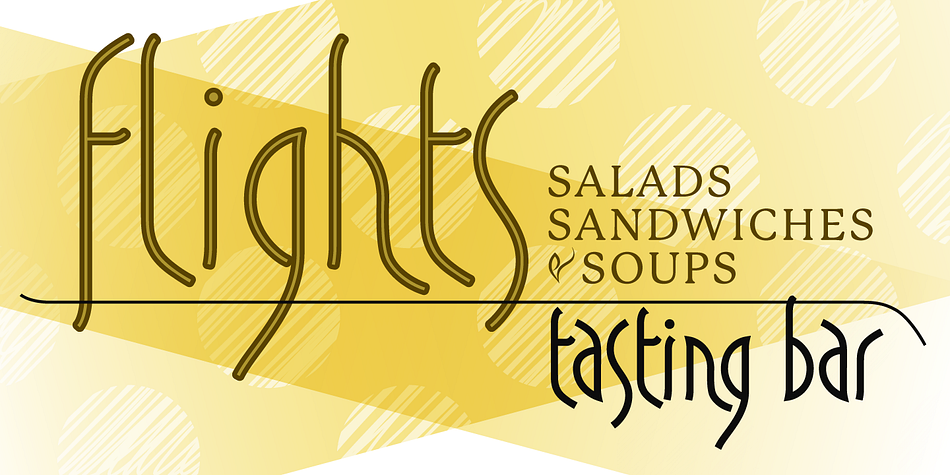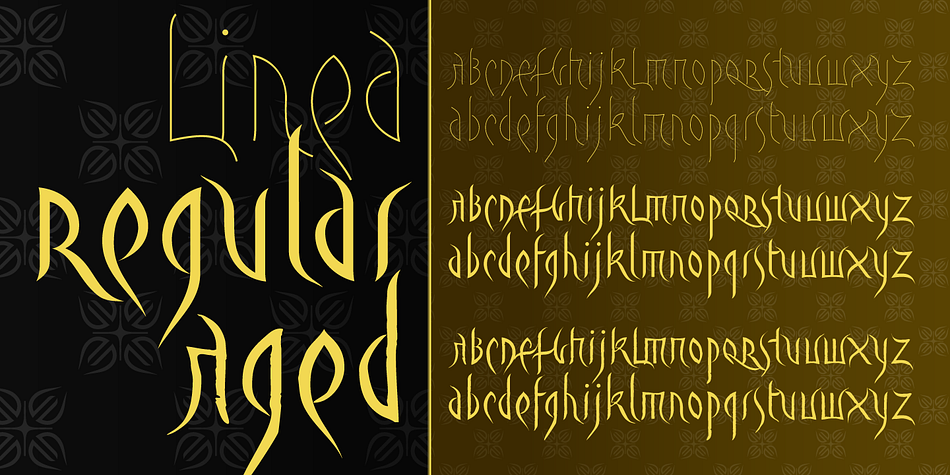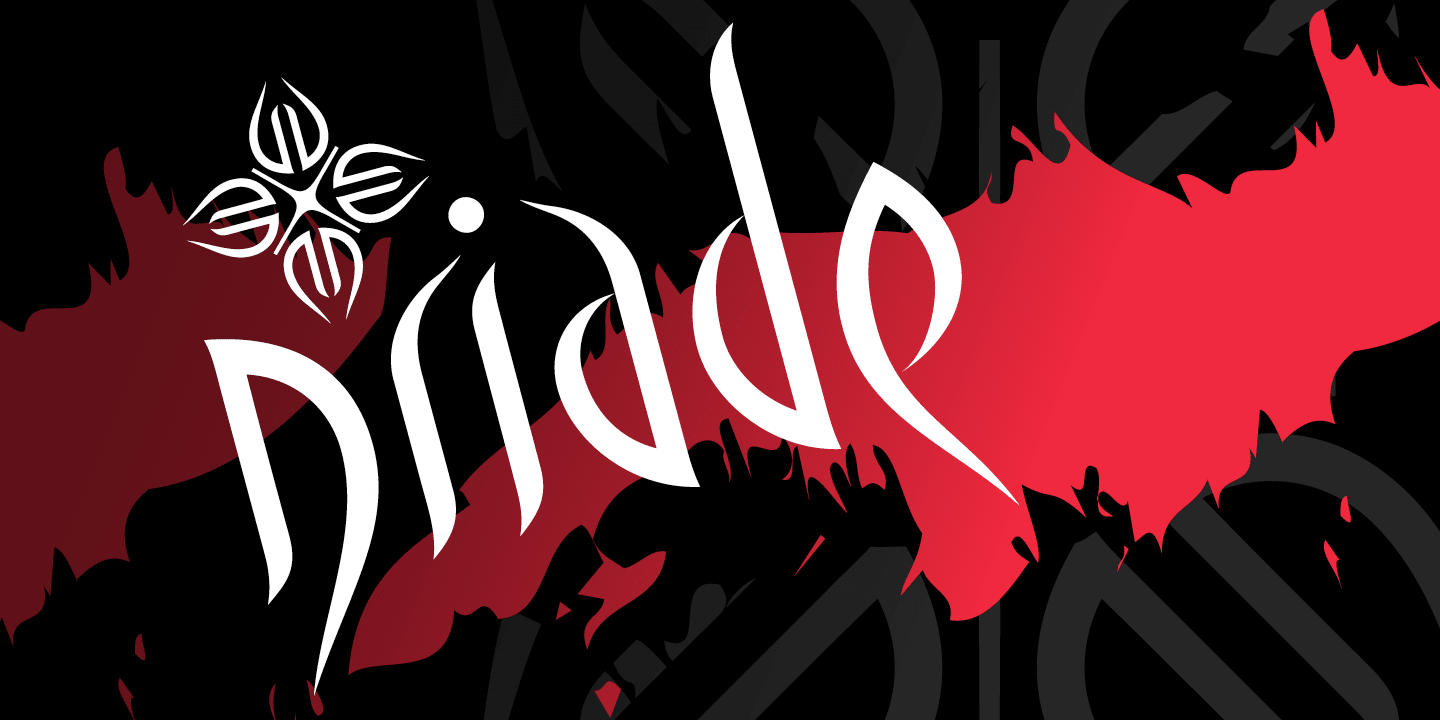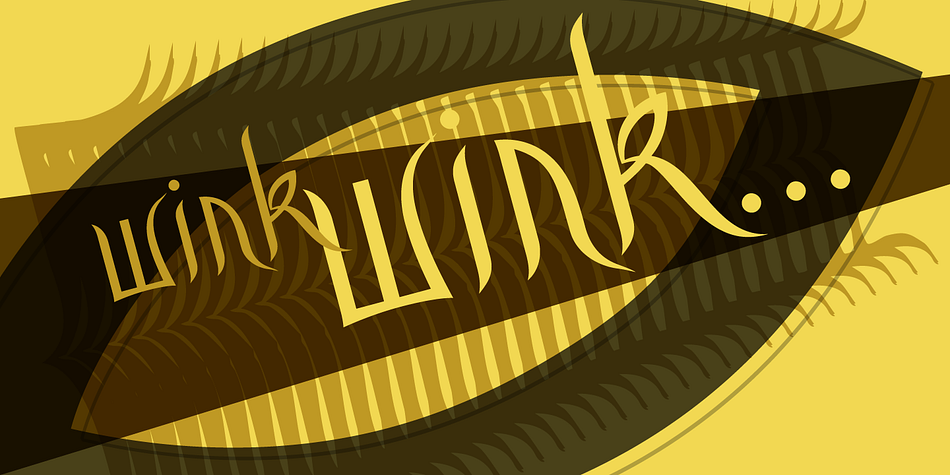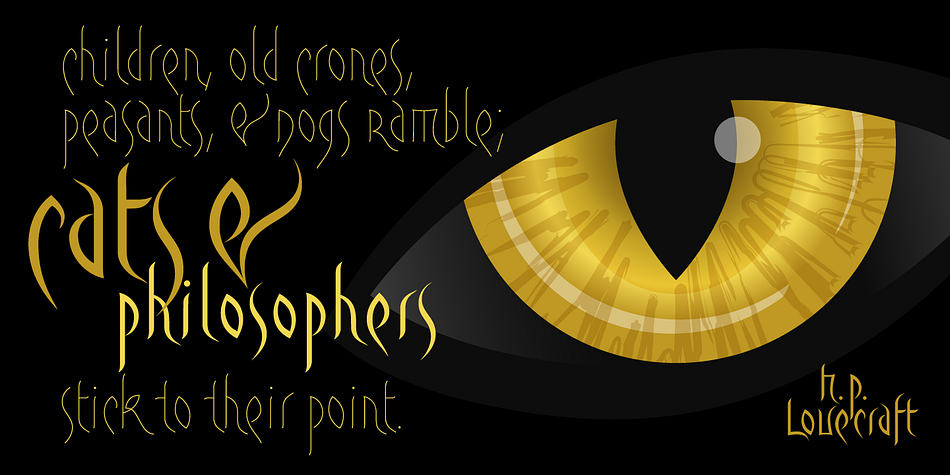
Driade is a novelty font family. This typeface has four styles and was published by International House of Fonts.
Driade is a group of fonts based on a personal calligraphic expression.
It is exotic but still familiar, readable and graced with a human touch.
“Aged” features irregularities found in Kothay’s original brush drawings.
“Lined” pares the letterforms down to their basic forms.